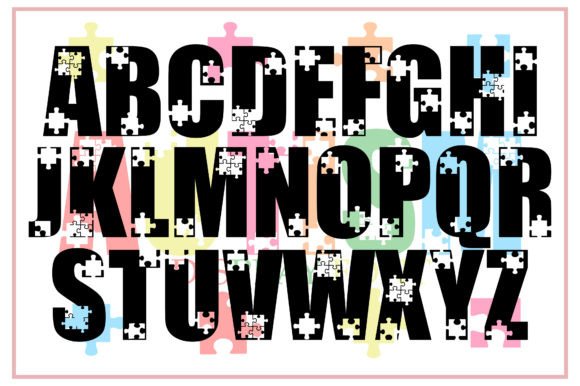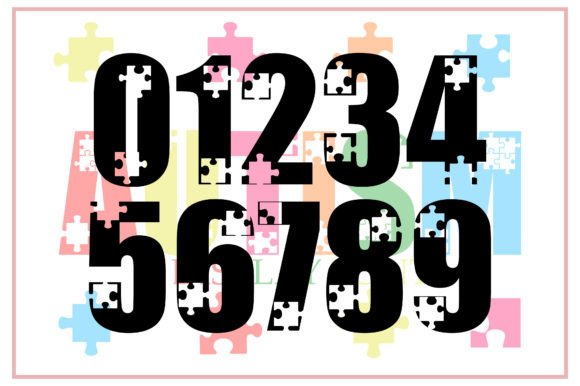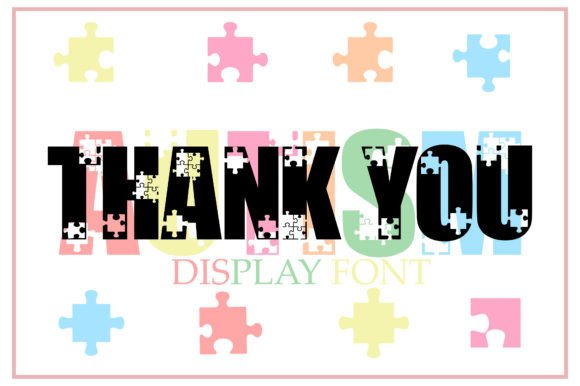
Introducing Autism Font: The Trendy and Unique Decorative Font for Creative Projects
Are you tired of using the same old fonts for your creative projects? Do you want to add a touch of personality and uniqueness to your designs? Look no further than Autism Font, a specially crafted decorative font that is sure to make your projects stand out. In this article, we’ll take a closer look at Autism Font, its features, and how it can elevate your designs to the next level.
What is Autism Font?
Autism Font is a trendy and unique decorative font that is perfect for designers, crafters, and anyone looking to add a personal touch to their projects. This font is specially designed to be visually striking, with a distinctive style that is sure to grab attention. Whether you’re working on a graphic design project, crafting a handmade card, or creating a digital artwork, Autism Font is the perfect addition to your fonts library.
Key Features of Autism Font
- Unique and Trendy Design: Autism Font boasts a one-of-a-kind design that is sure to make your projects stand out from the crowd.
- Highly Versatile: This font can be used for a wide range of projects, from graphic design and crafting to digital art and more.
- Easily Readable: Despite its decorative nature, Autism Font is highly legible, making it perfect for use in both titles and body text.
- Instant Favorite: Once you add Autism Font to your fonts library, it’s sure to become an instant favorite!
- Handmade Cards and Invitations: Add a personal touch to your handmade cards and invitations with Autism Font.
- Graphic Design Projects: Use Autism Font to add a unique and trendy touch to your graphic design projects, such as brochures, posters, and flyers.
- Digital Art: Incorporate Autism Font into your digital art projects, such as illustrations, paintings, and mixed media collages.
- Crafting Projects: Use Autism Font to add a decorative touch to your crafting projects, such as scrapbooking, journaling, and paper crafting.
Benefits of Using Autism Font
There are many benefits to using Autism Font in your projects. Here are just a few:
- Adds Personality and Style: Autism Font adds a unique and trendy touch to your projects, setting them apart from the crowd.
- Increases Readability: Despite its decorative nature, Autism Font is highly legible, making it perfect for use in both titles and body text.
- Versatile and Flexible: Autism Font can be used for a wide range of projects, from graphic design and crafting to digital art and more.
In conclusion, Autism Font is a trendy and unique decorative font that is perfect for designers, crafters, and anyone looking to add a personal touch to their projects. With its distinctive style, high versatility, and ease of use, Autism Font is sure to become an instant favorite in your fonts library. So why wait? Download Autism Font today and start adding a touch of personality and style to your creative projects!